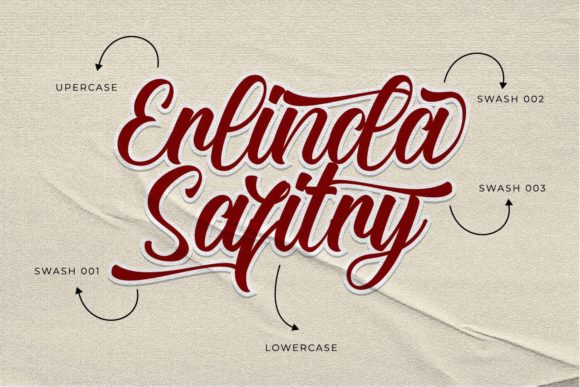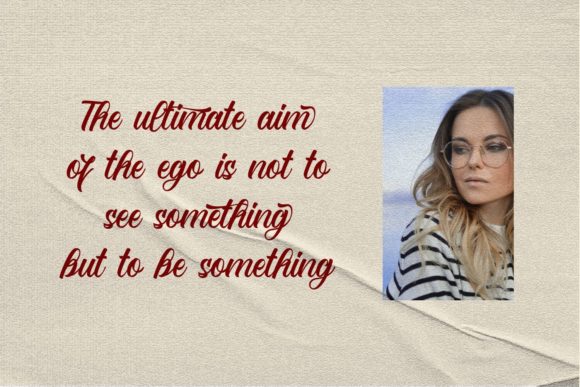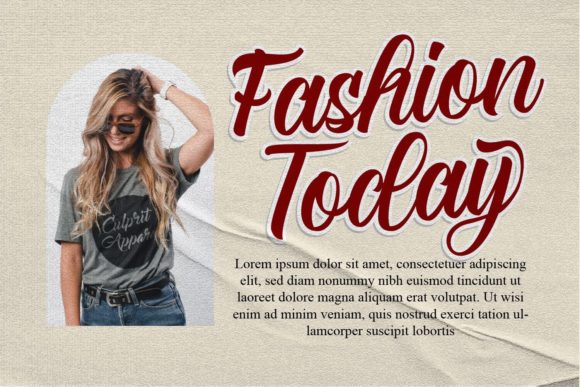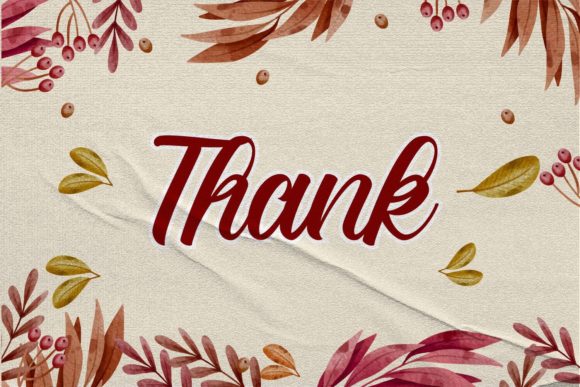
Designing with Elegance: Unveiling the Charm of Erlinda Safitry Font
There’s something magical about finding the perfect font for a project. It’s that moment when all the elements come together, and the design starts to feel alive. You know the feeling – it’s like the font is speaking directly to your audience, conveying the essence of your message in a way that’s both beautiful and effective. For many designers, that perfect font is Erlinda Safitry Font, a stunning script that adds a touch of elegance to any design.
Erlinda Safitry Font is a versatile and charming script that’s perfect for wedding invitations, thank you cards, quotes, greeting cards, logos, business cards, and more. Its PUA encoding makes it easy to access all the glyphs and swashes, giving designers the flexibility to create unique and personalized designs. Whether you’re a seasoned pro or just starting out, Erlinda Safitry Font is a valuable addition to any designer’s toolkit.
Erlinda Safitry Font Key Features
- Font Family: Erlinda Safitry Font is a unique, elegant, and highly legible font family designed specifically for body text and display purposes.
- Unique Characteristics: Features a distinctive combination of modern and classic elements, with a focus on readability and aesthetics, making it suitable for various design projects, including books, magazines, and websites.
Erlinda Safitry Font Review
As a designer, I was excited to dive into the Erlinda Safitry Font, and I must say, it has some great qualities that make it a solid choice for certain projects. ✨ The font’s unique blend of modern and traditional elements is quite refreshing, and the extensive character set makes it suitable for various languages.
The font’s open feel and subtle nuances in letterforms create a sense of approachability, making it perfect for body text or headlines in modern websites and applications. Additionally, the font’s legibility is top-notch, ensuring that the text remains clear and easy to read, even at smaller font sizes.
However, there are some limitations to consider: ⚠️ The font’s design may not be suitable for highly formal or traditional projects, as it may come across as too casual. Additionally, the font’s condensed proportions may not be ideal for large blocks of text, where a more expansive font might be more effective.
Conclusion
In conclusion, the Erlinda Safitry Font is a solid choice for designers looking for a modern, yet approachable font for their projects. While it may not be the best fit for every situation, it’s certainly worth considering for the right project. With its unique blend of style and functionality, it’s definitely worth adding to your design arsenal.
- Unique blend of modern and traditional elements
- Extensive character set suitable for various languages
- Open feel and subtle nuances in letterforms
- Top-notch legibility
- Condensed proportions may not be ideal for large blocks of text
The Erlinda Safitry Font is ideal for creating elegant and sophisticated designs. Use it for:
- High-end product packaging and labeling
- Formal event invitations and announcements
Yes, the Erlinda Safitry Font is designed to be highly legible on a wide range of devices and platforms, including desktop computers, laptops, smartphones, and tablets. It is also optimized for use on the web, making it an excellent choice for digital design projects.
Q: What is the recommended line spacing for the Erlinda Safitry Font?
We recommend using a line spacing of 1.2 to 1.5 times the font size to ensure comfortable reading and prevent text from becoming too dense. This will help maintain the font’s readability and visual appeal.